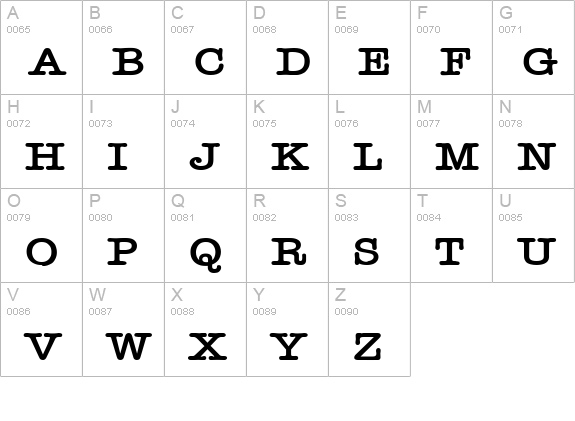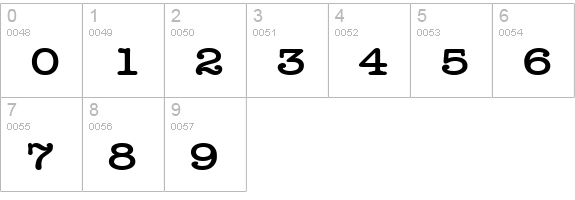
Headline Wide Bold is a strong, high-contrast, extended-width variant in the Headline typeface family \xE2\x80\x94 well suited to headlines, attention-grabbing titles, and strong calls-to-action.
Introducing Headline Wide Bold, a captivating and eye-catching font that is sure to make a bold statement in any design project. With its wide and commanding letterforms, this font demands attention and exudes confidence. Whether you are designing a striking headline for a magazine cover, creating impactful advertising materials, or crafting a powerful logo, Headline Wide Bold is the perfect choice to convey your message with maximum impact. This font boasts a powerful presence with its thick and bold strokes, ensuring that your text stands out from the crowd. Its wide and expansive design allows for easy readability even at smaller sizes, making it versatile for a wide range of applications. From posters to banners, websites to packaging, Headline Wide Bold adds a touch of professionalism and sophistication to any design. But what sets Headline Wide Bold apart from other fonts is its accessibility. It is freely available to download at FontsMarket.com, a leading platform for high-quality and diverse font selections. This means that designers, professionals, and enthusiasts alike can enjoy the benefits of this exceptional font without any financial burden. With just a few clicks, you can enhance your designs and elevate your projects to new levels of creativity. So why wait? Download Headline Wide Bold today and unlock the power of this remarkable font. Let your words speak louder and leave a lasting impression with Headline Wide Bold.